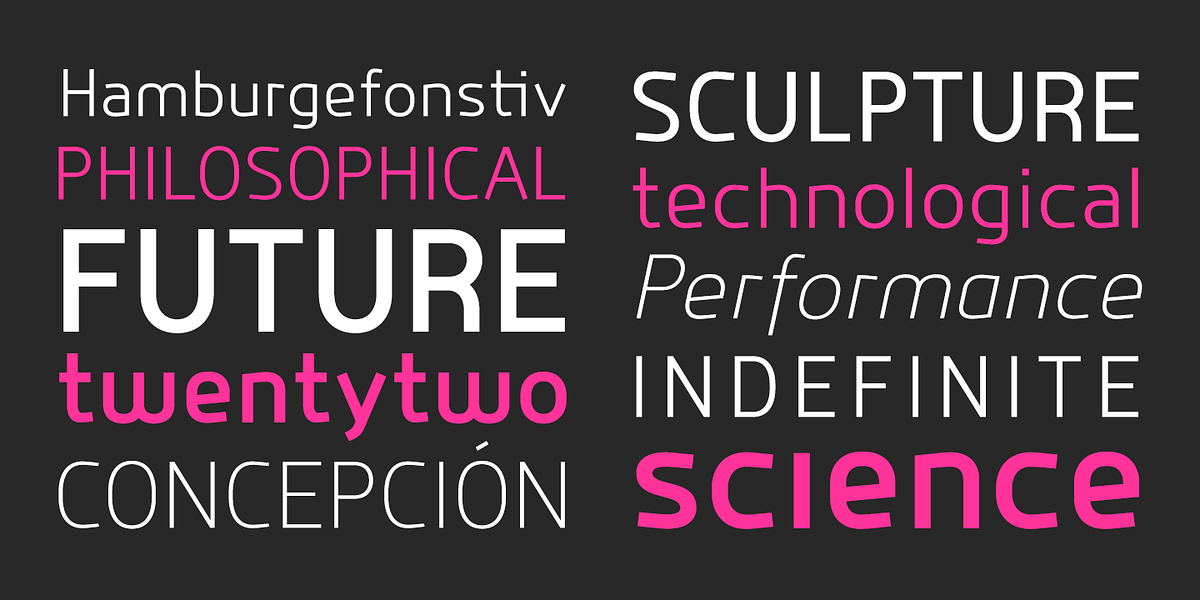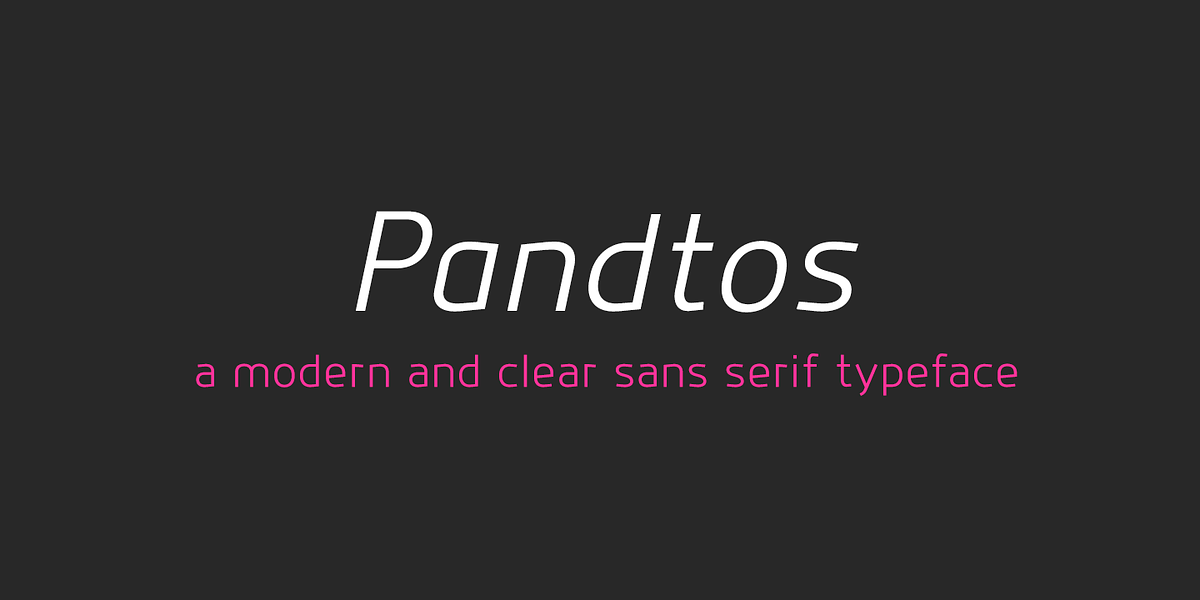
Pandtos
Pandtos is a humanist sans serif typeface characterized by its geometric shapes and precise lines. Its unique letterforms, extended widths, tall x-heights, and clear shapes prioritize legibility and readability even at smaller sizes. The font family includes four weights with matching italics, along with exclusive ligatures and extensive OpenType features.